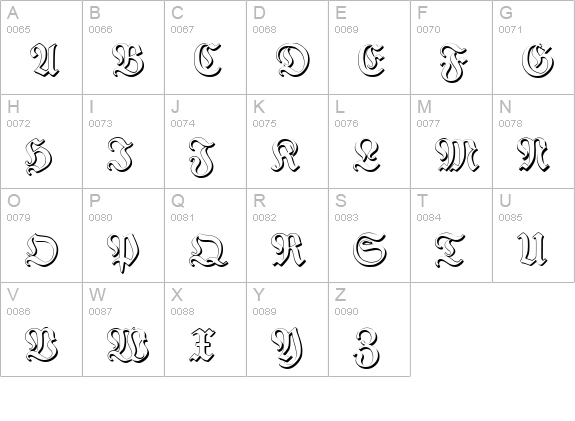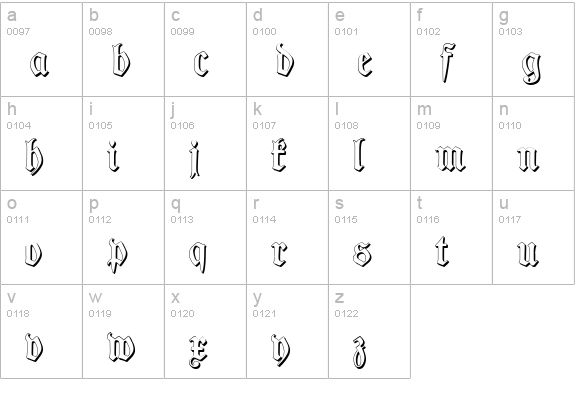
TypographerFraktur Shadow Font Details
Introducing TypographerFraktur Shadow, a truly captivating font that effortlessly combines elegance with an intriguing touch of mystery. This beautifully designed typeface is a testament to the artistry of typography, showcasing the intricate details and delicate curves that make Fraktur fonts so distinctive. With its bold and dramatic presence, TypographerFraktur Shadow commands attention and evokes a sense of timeless sophistication. The intricate shadow effect adds depth and dimension, giving each character a mesmerizing three-dimensional quality that makes them appear as if they are emerging from the page. Perfect for a wide range of design projects, from vintage-inspired branding to editorial layouts, TypographerFraktur Shadow boasts a versatility that knows no bounds. Its strong visual impact makes it ideal for headlines, logos, posters, and signage, while its intricate details ensure legibility even at smaller sizes. But what sets TypographerFraktur Shadow apart is not just its stunning aesthetic appeal. It is also available for free, allowing designers, typographers, and enthusiasts to unleash their creativity without any financial constraints. Simply head over to FontsMarket.com, where this captivating font awaits, ready to elevate your designs to new heights. Don't miss out on the opportunity to add TypographerFraktur Shadow to your font collection. Download it today and let its enchanting allure breathe life into your creative projects.